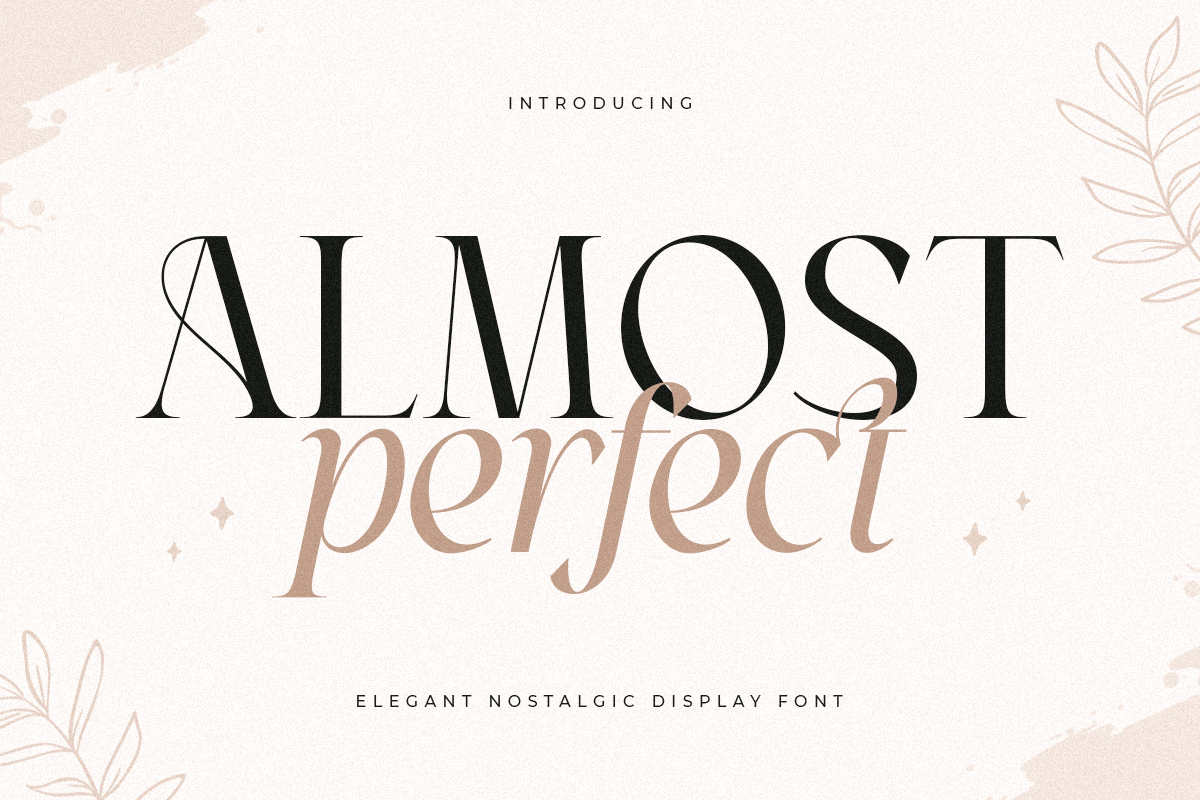
Almost
-Elegant Nostalgic Display Font
A Nostalgic Elegant Serif font that we created special for elegant branding needs, with unique shape will be ready to add value of your brand. It so nice to leverage designer or product owner that need solutions to make their design look more stylish and modern. And specially for Almost font, We prepared any characters to help you create unlimited variations for your creative needs.
Almost Nostalgic Serif font ready with:
• Ready with Regular and Italic version